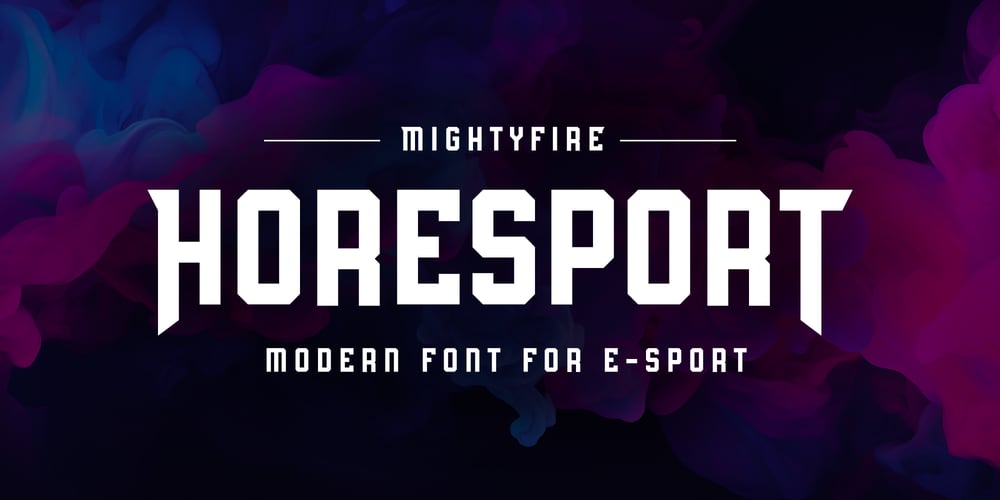
Horesport Font Family was designed by Agustian Eko Saputro, Aprilia Nurina Putri and published by Mightyfire. Horesport contains 1 styles and family package options. Horesport is a bold sport font is a typographic style that exudes strength, dynamism, and a sense of action. Characterized by thick, robust letterforms, this font is designed to make a powerful visual impact, capturing the essence of athleticism and energy. The letters are crafted with strong, confident strokes, creating a bold and assertive appearance.Whether used on jerseys, banners, posters, or digital displays, a bold sport font commands attention and reinforces the spirit of competition. Its high-impact design ensures visibility from a distance, making it ideal for conveying a team’s identity or promoting sporting events with flair and vigor. We’re proud and honored if Horesport can be the part of your special projects. Thank you ๐